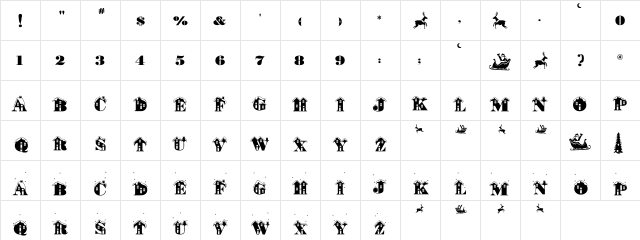
St Nicholas Regular
Design Context for St Nicholas Typeface
St Nicholas is a composed and adaptable typeface that performs quietly and consistently across a wide range of design contexts.